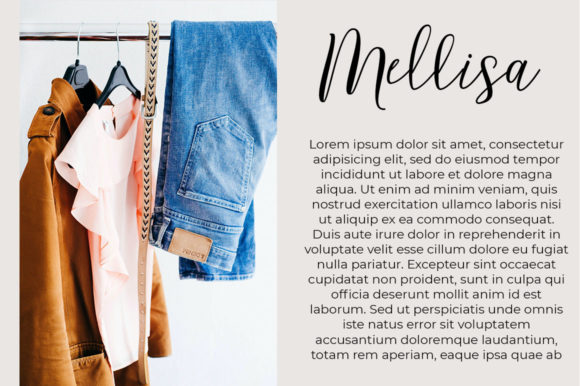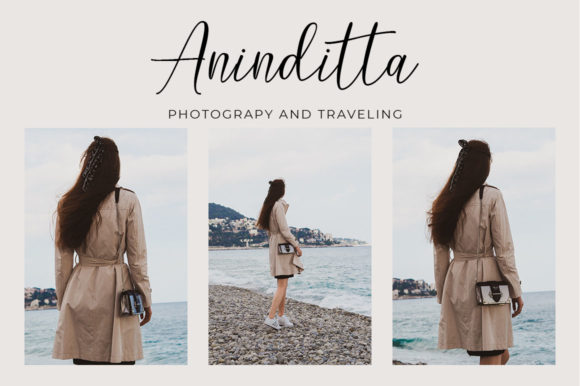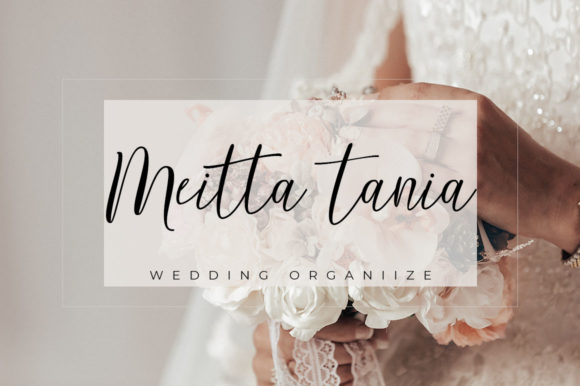
About Mellisa Font
Mellisa is a beautiful and flowing script font that exudes elegance and charm. With its graceful curves and intricate details, this font adds a touch of sophistication to any design. Whether you’re creating wedding invitations, thank you cards, logos, or greeting cards, Mellisa is the perfect choice for projects that require a personalized and stylish touch.
The cursive nature of Mellisa gives it a romantic and whimsical feel, making it ideal for wedding-related designs. Its smooth and flowing lines create a sense of movement and grace, enhancing the overall aesthetic appeal. Whether used as the main focal point or as an accent element, Mellisa adds an air of sophistication and elegance to your designs.
One of the standout features of Mellisa is its versatility. It can be used in various design contexts, from formal events like weddings to more casual projects such as logos or social media graphics. Its readability ensures that your message is conveyed effectively, while the beautiful swashes and glyphs add decorative flair and enhance the overall visual impact.
Whether you’re designing for a special occasion, creating a memorable logo, or crafting heartfelt greeting cards, Mellisa is the perfect choice. Its lovely and flowing script style elevates your designs, giving them a touch of elegance and personality.
In summary, Mellisa is a lovely and flowing script font that adds a touch of elegance and charm to a variety of designs. From wedding invitations to logos and greeting cards, this font’s personalized style and PUA encoding make it a versatile choice. Let Mellisa elevate your designs and create a lasting impression.